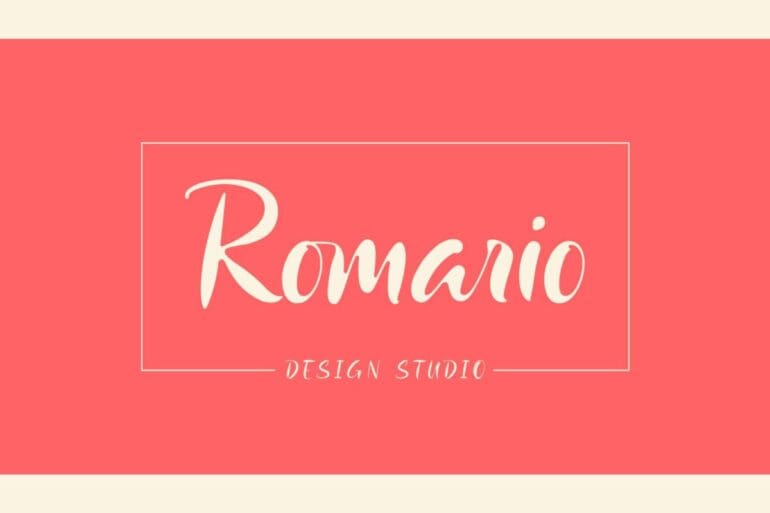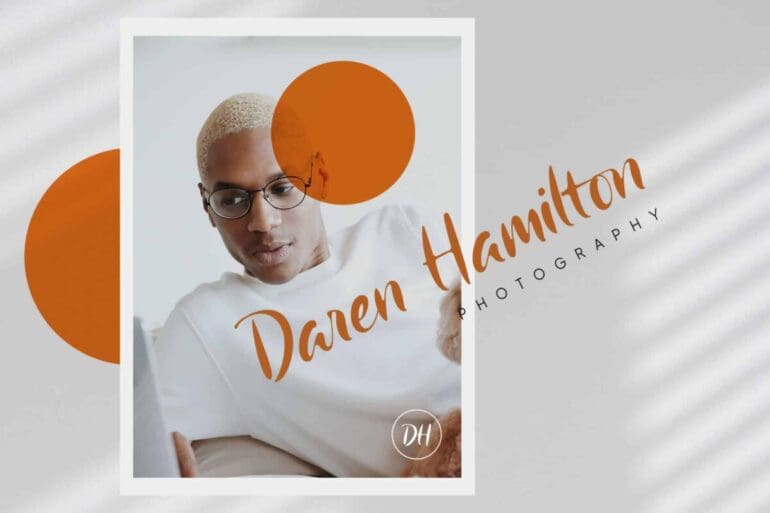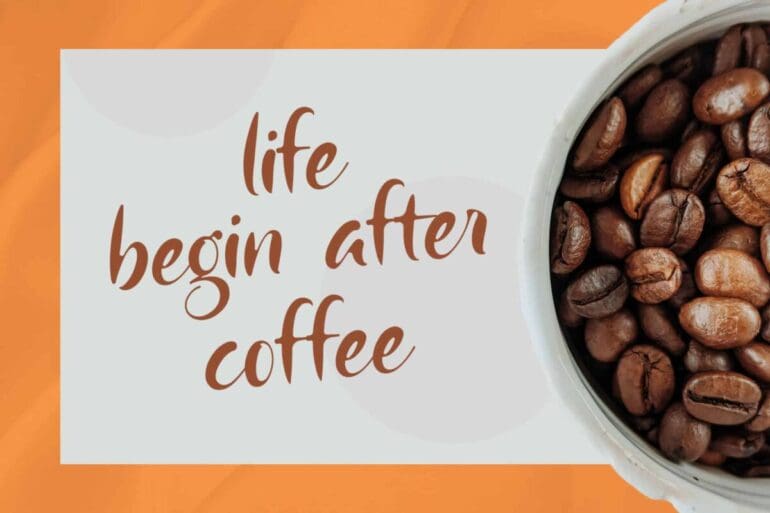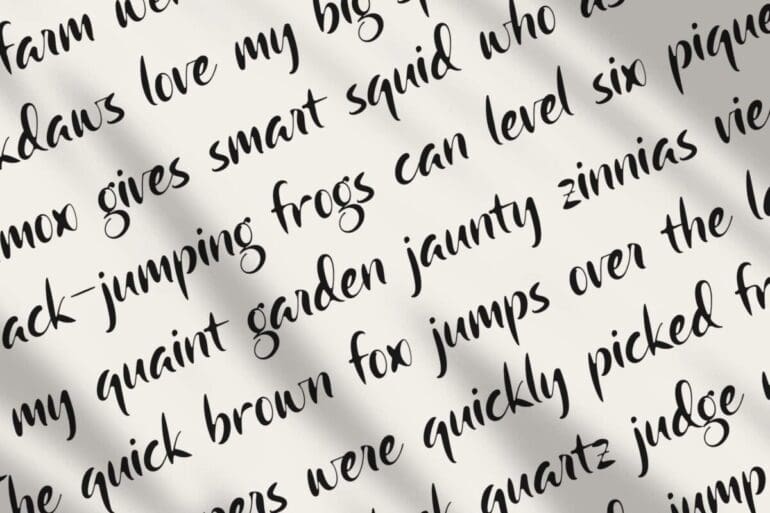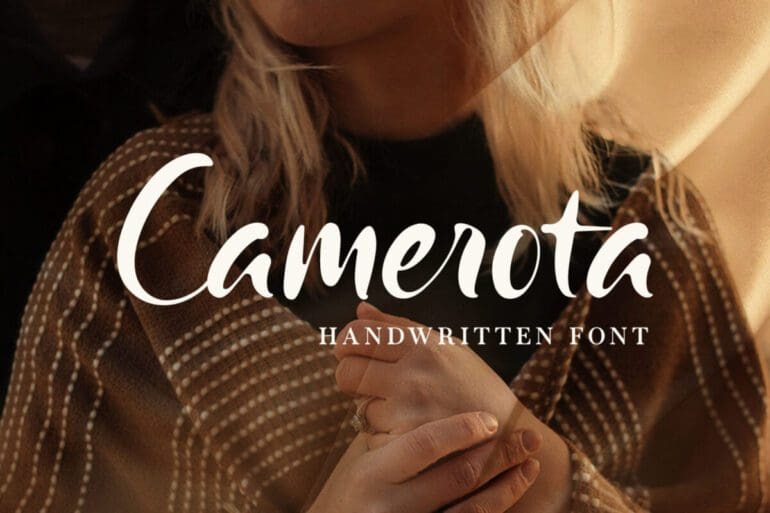
Camerota Font
Camerota is a relaxed Handwritten Font. It’s perfect for branding, stationery design, social media, packaging, magazine layout, prints, and more.